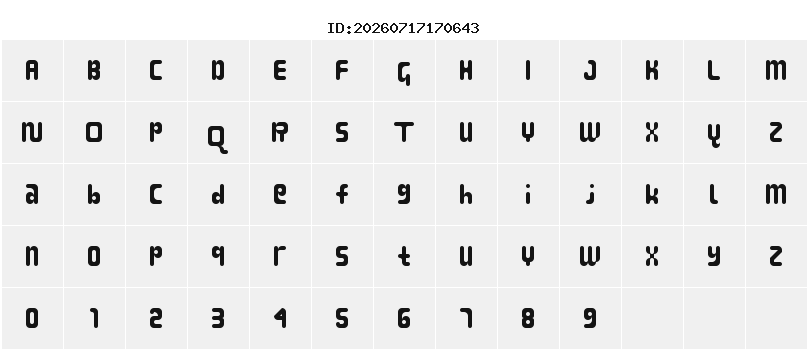
• Font Name: Bikang Struck
• Full Font Name: Bikang Struck Regular
• Designer: Adien Gunarta
• Description: “Bikang Struck” was built with FontStruct
About Bikang Struck.ttf
Bikang Struck.ttf is a modern, elegant sans-serif font designed for ultimate readability and visual harmony. Perfect for branding, headlines, web design, and print materials.